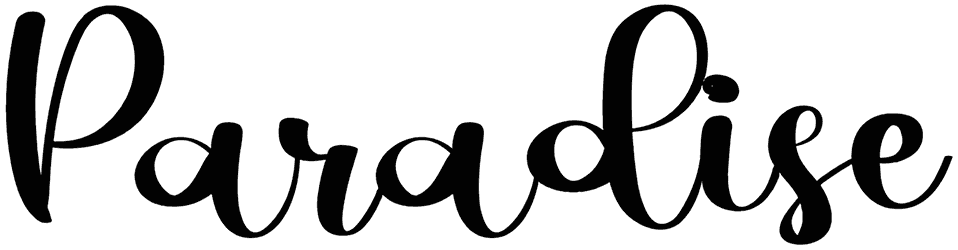
Paradise Font
Paradise is the curly font that can give a natural feel to your projects and distance them from the artificial and digital space. This script font has letters that are similar to human handwriting and is mostly used for projects that require direct communication with people.
This romantic font presents your message to the audience in a decorated format, without distracting them. So it works great for business cards, book introductions, and even love letters.
Paradise is a dainty and flowing handwritten font. Sweet and joyful, this font will be ideal for writing wedding invitations, cards or any other design that may need a romantic, personalized touch!